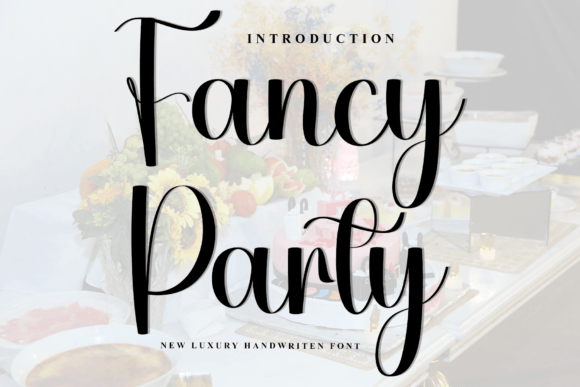
Fancy Party Font: The Ultimate Choice for Creative and Playful Designs
The world of typography is vast and diverse, offering a multitude of font styles to suit various design needs. Among these, the Fancy Party font stands out for its unique blend of casualness and creativity. This font is not just a simple collection of characters; it’s an expression of warmth, friendliness, and approachability. In this article, we’ll delve into the characteristics of the Fancy Party font, its applications, and why it has become a favorite among designers and casual users alike.
The Essence of Fancy Party Font
Fancy Party is a casual and creative font that exudes warmth and friendliness. Its round, playful strokes create a relaxed and approachable feel, making it perfect for projects that require a personal touch. Whether you’re designing an invitation, a social media graphic, or a personal project, Fancy Party adds a charming, hand-drawn aesthetic that is both fun and unique.
Key Features of Fancy Party Font
- Casual and Creative: Fancy Party is designed to bring a casual and creative vibe to your designs. Its playful strokes and rounded edges make it stand out from more traditional fonts.
- Warmth and Friendliness: The font’s design elements convey a sense of warmth and friendliness, making it ideal for projects that aim to connect with the audience on a personal level.
Applications of Fancy Party Font
The versatility of Fancy Party font makes it suitable for a wide range of applications. Here are some of the most popular uses:
1. Personal Projects
Fancy Party is perfect for personal projects such as photo albums, scrapbooking, and DIY crafts. Its playful and friendly nature adds a personal touch to your creations.
2. Invitations and Cards
Create beautiful and unique invitations for parties, weddings, and other special occasions with Fancy Party font. Its charming aesthetic ensures that your invitations stand out.
3. Social Media Graphics
Enhance your social media presence with eye-catching graphics designed using Fancy Party font. It’s ideal for posts, stories, and banners that require a friendly and approachable tone.
4. Branding and Packaging
For businesses looking to create a friendly and approachable brand image, Fancy Party font can be a great choice. It’s suitable for product labels, packaging, and marketing materials.
Why Choose Fancy Party Font?
In a world where fonts are abundant, why should you choose Fancy Party for your designs? Here are some compelling reasons:
1. Unique Aesthetic
Fancy Party offers a unique hand-drawn aesthetic that sets it apart from more conventional fonts. Its playful strokes and rounded edges create a distinctive look that can elevate your designs.
3. Versatility
Whether you’re working on a personal project, a professional design, or a casual social media post, Fancy Party font adapts well to different contexts and purposes.
4. Emotional Connection
The warmth and friendliness conveyed by Fancy Party font help create an emotional connection with your audience, making your designs more relatable and engaging.
Fancy Party font is more than just a typography; it’s a design element that brings warmth, friendliness, and creativity to your projects. Its casual and playful strokes make it perfect for a variety of applications, from personal projects and invitations to social media graphics and branding. With its PUA Encoded glyphs, it’s compatible with a wide range of software and devices, ensuring ease of use and versatility.
Whether you’re a professional designer or someone who loves to dabble in design for fun, Fancy Party font can add a unique and fun touch to your creations. So, next time you’re looking for a font that exudes warmth and approachability, consider Fancy Party – it might just be the perfect fit for your design needs.